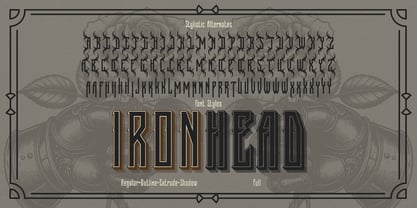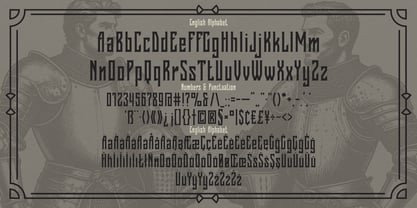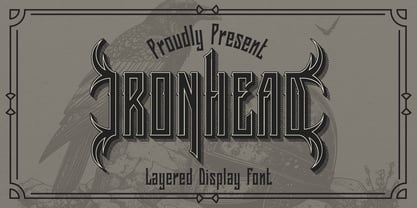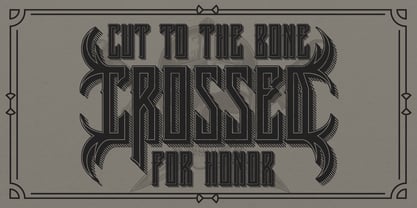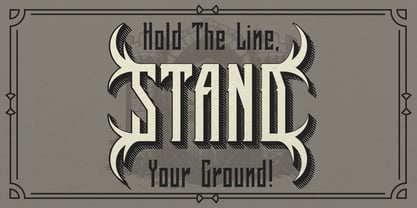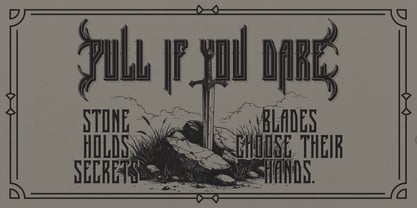
Ironhead
by Vozzy
The Ironhead Font Family was designed by Oleg Voznyy and published by Vozzy. Ironhead contains 5 styles and family package options. More about this family
Introducing "Ironhead," a distinctive font designed specifically for headlines and accent inscriptions that demand attention. This font features a comprehensive set of additional characters, punctuation marks, and multilingual characters, along with an extensive array of standard ligatures—ensure your software supports these OpenType features for optimal use. Perfect for branding, web design, and editorial projects, "Ironhead" will enhance your creative designs with its bold and eye-catching style!
Designers: Oleg Voznyy
Foundry: Vozzy